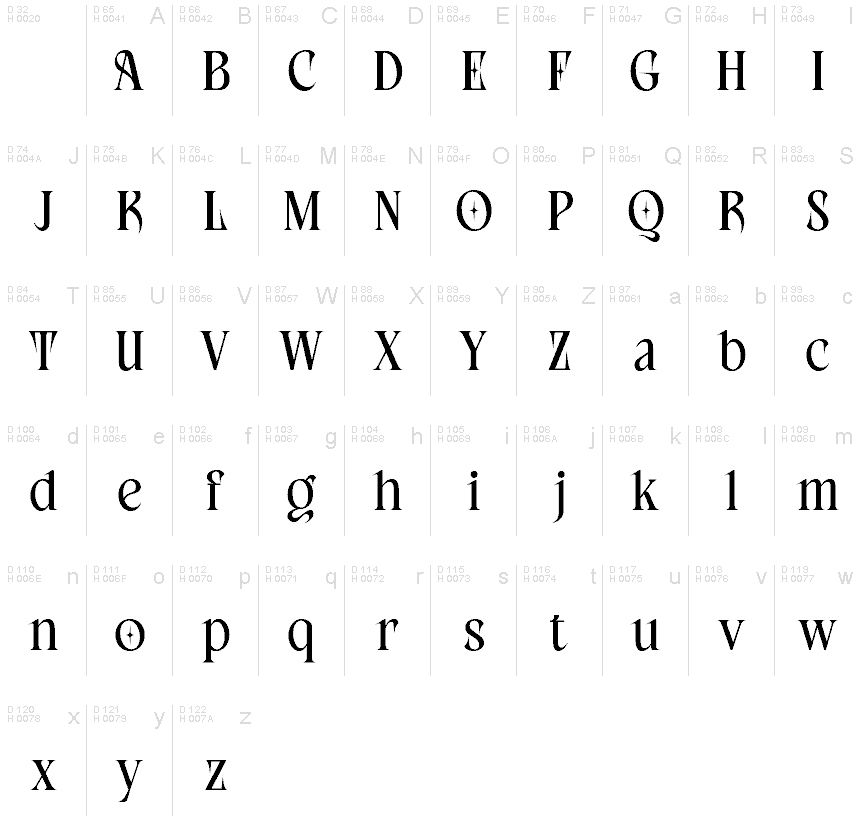
CS Georgia Regular Demo
CS Georgia font from Craft Supply Co. is an elegant vintage-inspired font with classic serif features. It balances sophistication and style in its composition while achieving inspiration from older typefaces. Carefully designed ornamental elements accentuate the sophisticated appearance of each character, making it a great choice for retro artistic design projects.